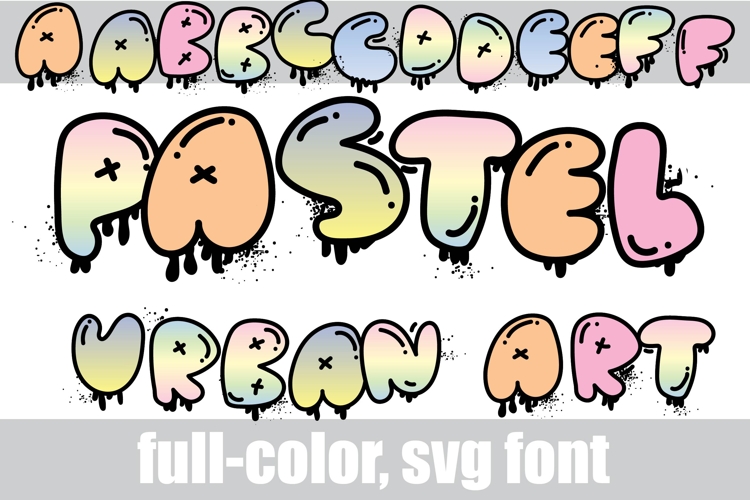
Urban Art Pastel Color Font
This full-color, graffiti style font is in a pastel gradient color palette. There is an alt case of additional colors of each letter that you can access through your system's character map.